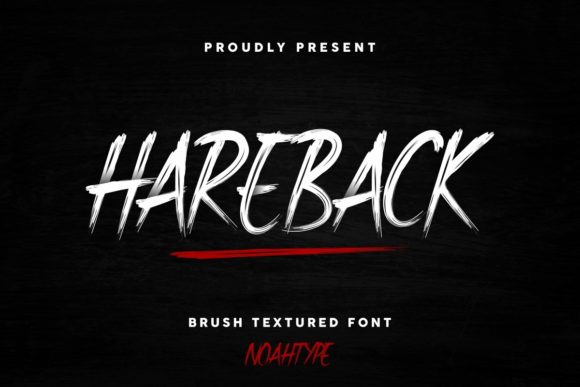
Introducing Hareback Font, a display font family that exudes a cool and street art vibe, adding an edgy touch to your designs. This visually striking font, crafted by NoahType, is perfect for those seeking a handwritten aesthetic with a modern twist.
With its bold strokes and dynamic flow, Hareback Font effortlessly captures attention, making it an ideal choice for creating captivating designs that stand out. Its versatility shines in a wide range of applications, from t-shirts and sportswear to logos, advertisements, and clothing.
Step into the world of Hareback Font and unleash your creativity. Let your designs speak volumes with this magnificent font that adds a touch of uniqueness to every project. Whether you're a seasoned designer or just starting out, Hareback Font is your key to creating designs that resonate with your audience.
Embrace the urban spirit of Hareback Font and let your imagination run wild. Its ability to blend seamlessly with various styles makes it a versatile asset in your design arsenal. Whether you're aiming for a bold and eye-catching look or a more subtle and refined aesthetic, Hareback Font delivers.
So, embark on a creative journey with Hareback Font and elevate your designs to new heights. Its user-friendly nature ensures a smooth and seamless experience, allowing you to focus on what truly matters - expressing your creativity and capturing the hearts of your audience.